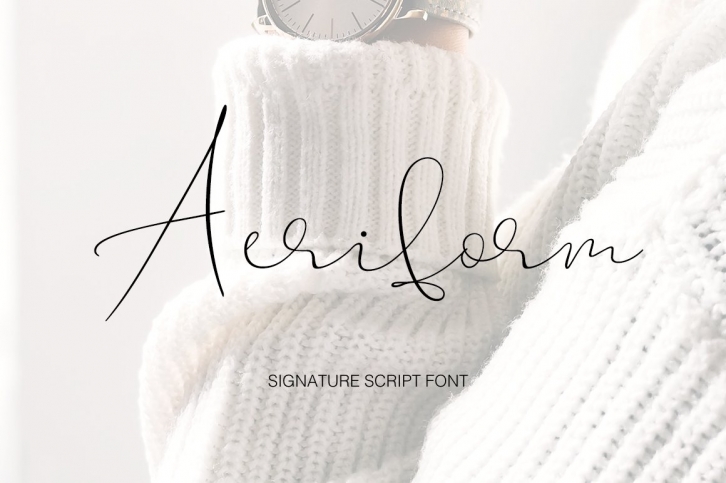
Aeriform script- a new fresh handmade calligraphy font.
This font is ideal for branding and decorate your any project, are perfect for wedding invitation or your blog. Also with their help, you can create a logo or beautiful frame for your home. Or just use for your small business, book covers, stationery, marketing, magazines and more. Special for you I prepared a lot alternates and ligatures.